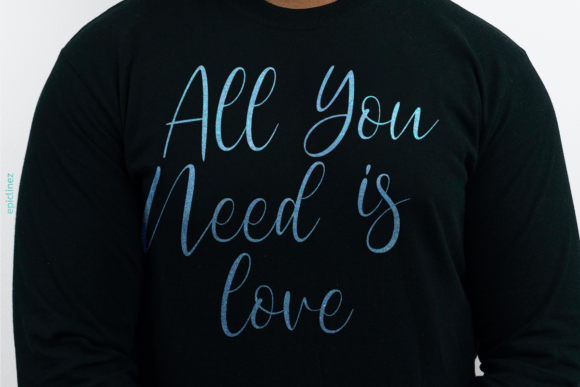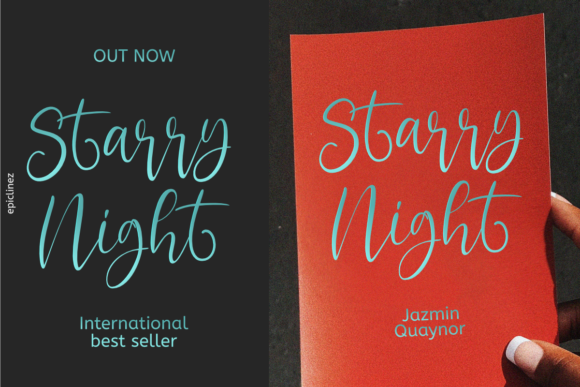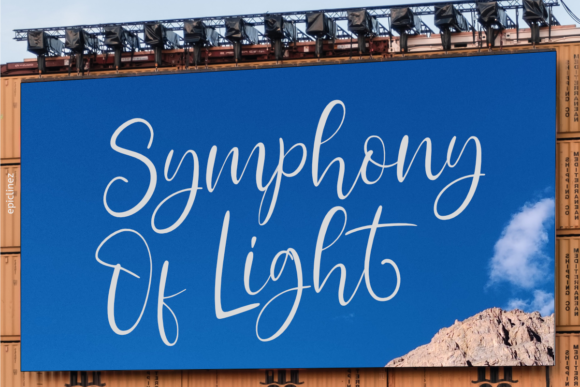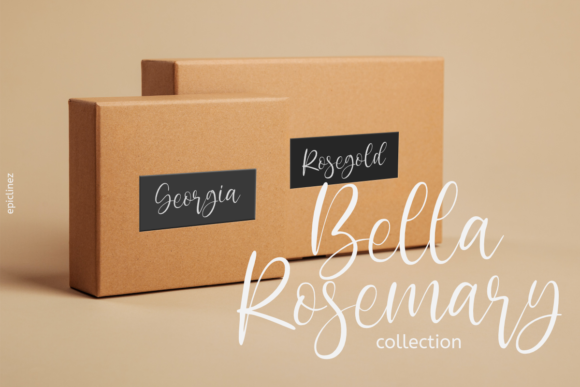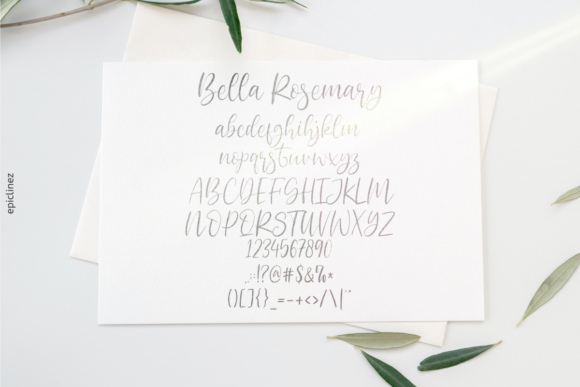
Bella Rosemary Font: Elevate Your Designs with Timeless Elegance
In the world of typography, few fonts capture the essence of elegance and sophistication as beautifully as the Bella Rosemary font. This lovely and timeless handwritten font has been making waves among designers and crafters alike, and for good reason. With its unique and beautiful touch, Bella Rosemary is the perfect choice for creating eye-catching logos, branding, and quotes that leave a lasting impression.
The Charm of Bella Rosemary
What sets Bella Rosemary apart from other fonts is its distinctive handwritten style, which exudes warmth and personality. Every letter has been carefully crafted to showcase a unique and beautiful touch, making it a standout in the world of typography. Whether you’re looking to create a logo, branding materials, or social media graphics, Bella Rosemary is sure to bring your design to life.
Bella Rosemary is a versatile font that can be used in a variety of design projects. Designers will love the font’s flexibility and expressiveness, which allows for endless creative possibilities. Crafters, on the other hand, will appreciate the font’s whimsical and artistic feel, which adds a personal touch to any project. Whether you’re a seasoned designer or a DIY enthusiast, Bella Rosemary is sure to become a favorite in your font collection.
Key Features of Bella Rosemary
- Timeless handwritten style: Bella Rosemary boasts a classic, elegant look that’s perfect for creating sophisticated designs.
- Unique letterforms: Every letter has a distinctive and beautiful touch, ensuring that your designs stand out from the crowd.
- Versatile: Use Bella Rosemary for logos, branding, quotes, and more – the possibilities are endless!
- Ease of use: The font is easy to read and works well in both digital and print formats.
How to Use Bella Rosemary in Your Designs
Using Bella Rosemary in your designs is easy. Here are a few tips to get you started:
- Pair with complementary fonts: Combine Bella Rosemary with clean sans-serif fonts for a striking contrast.
- Experiment with colors: Try pairing Bella Rosemary with bold colors or subtle pastels to add depth and interest to your designs.
- Play with textures: Add a touch of whimsy to your designs by layering Bella Rosemary over textured backgrounds.
Why Choose Bella Rosemary?
With so many fonts available, why choose Bella Rosemary? Here are just a few reasons:
- Elegance and sophistication: Bella Rosemary adds a touch of class to any design.
- Unique and memorable: The font’s distinctive style ensures that your designs will be remembered.
- Easy to use: Bella Rosemary is simple to incorporate into your designs, even for those new to typography.
In conclusion, Bella Rosemary is a stunning handwritten font that’s perfect for designers and crafters looking to elevate their designs. With its timeless elegance, unique letterforms, and versatility, Bella Rosemary is sure to become a go-to font in your collection. So why wait? Download Bella Rosemary today and start creating beautiful, eye-catching designs that leave a lasting impression!